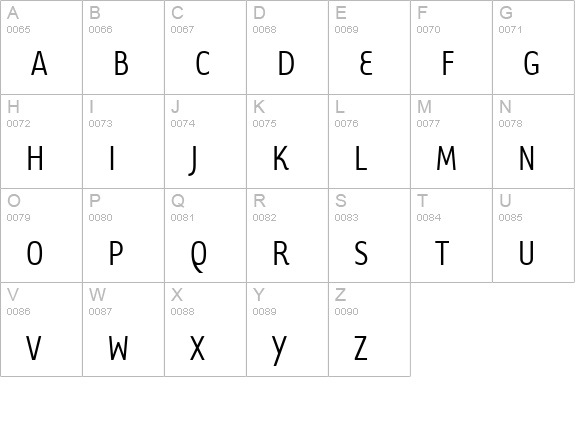
TarzanaNarrow Regular is the standard, neutral variant in the TarzanaNarrow typeface family \xE2\x80\x94 well suited to general body text, paragraphs, and standard typographic work.
TarzanaNarrow Regular font is a sleek and stylish typeface that exudes elegance and sophistication. Its narrow letterforms are meticulously crafted to create a visually appealing and balanced design. With its clean lines and sharp edges, TarzanaNarrow Regular font is perfect for creating eye-catching headlines, logos, and branding materials. This font's versatility allows it to be suitable for a wide range of design projects, whether it be for print or digital media. Its restrained proportions make it ideal for fitting large amounts of text into limited spaces, making it a great choice for magazines, brochures, and websites. The beauty of TarzanaNarrow Regular font lies not only in its design but also in its accessibility. It is available for free download at FontsMarket.com, allowing designers and typographers to easily access and utilize this exceptional font in their projects. This gives you the freedom to experiment and explore the possibilities of this font, without any cost restrictions. Whether you're a professional designer or a hobbyist, TarzanaNarrow Regular font is a valuable addition to your font library. Its timeless design and wide range of applications make it a must-have for any design project. Download it for free today at FontsMarket.com and let your creativity flow.